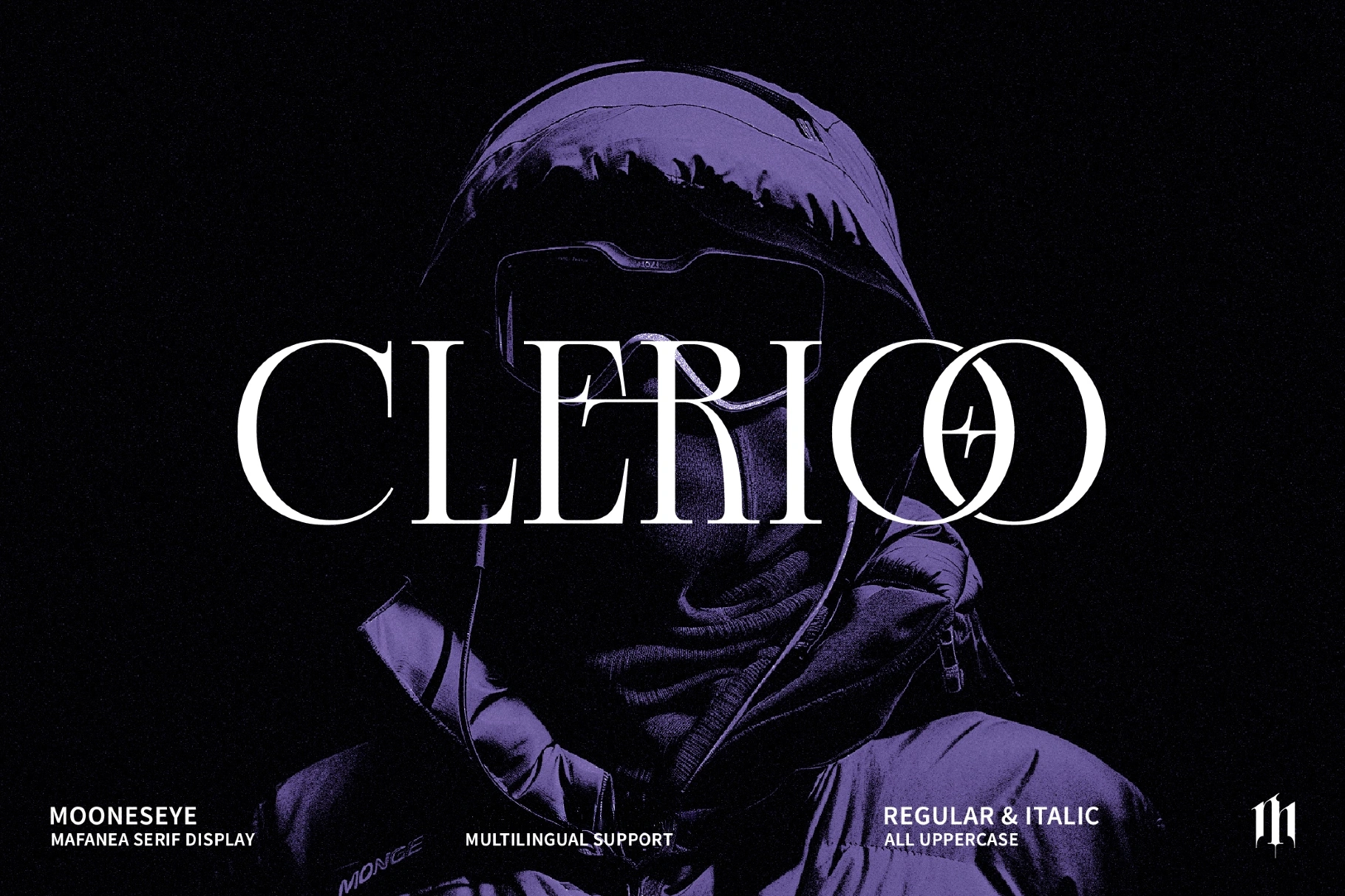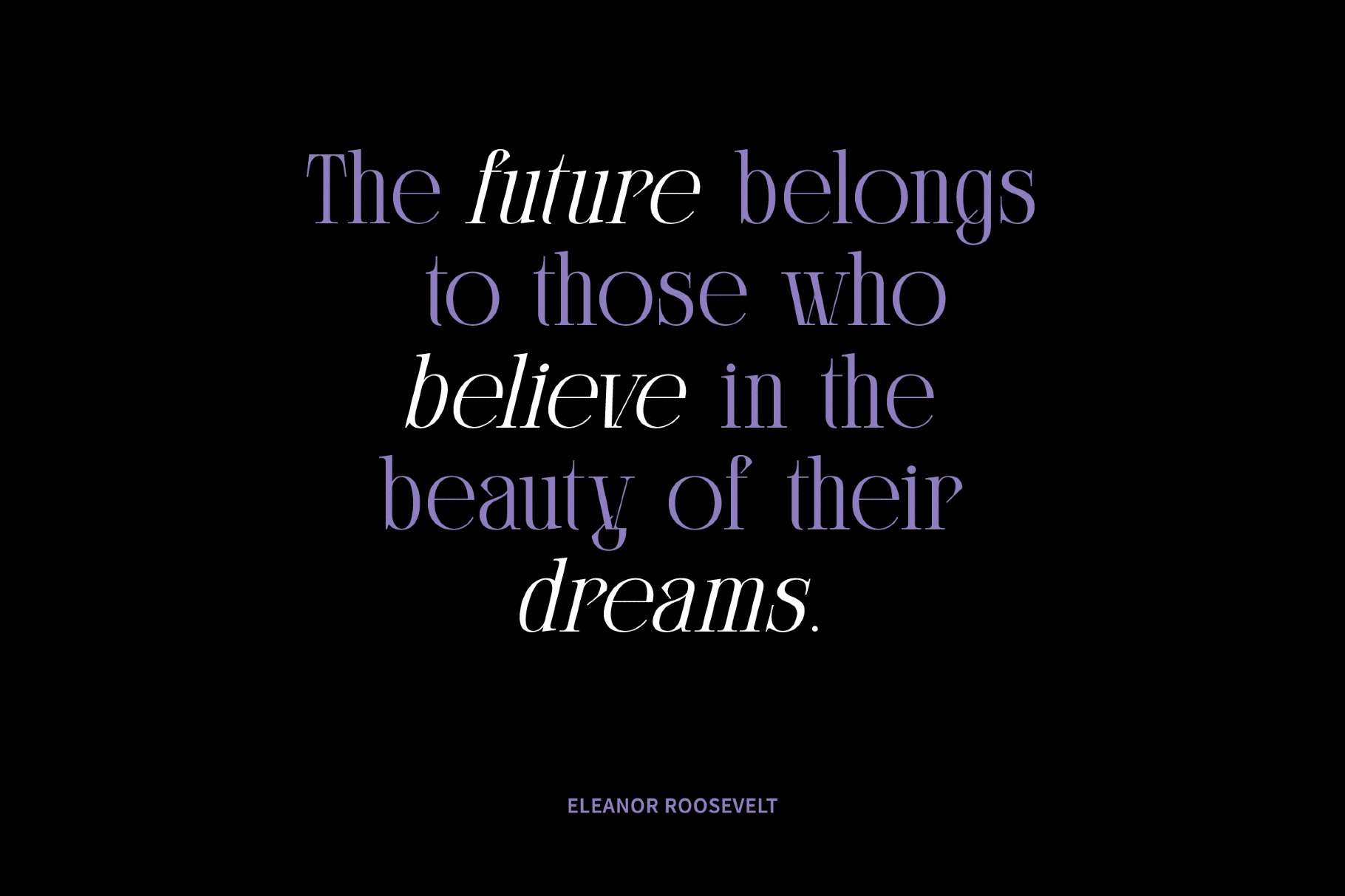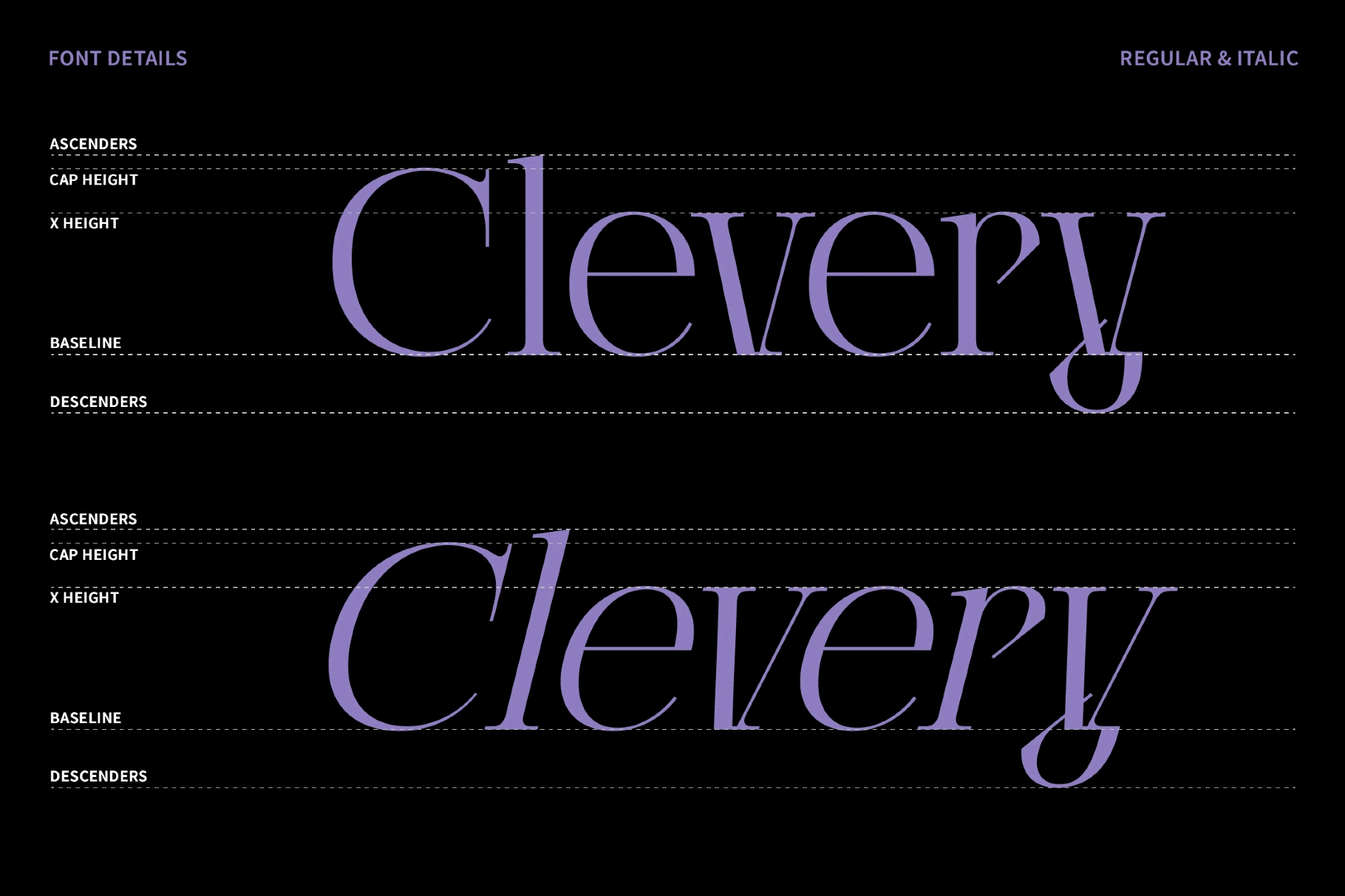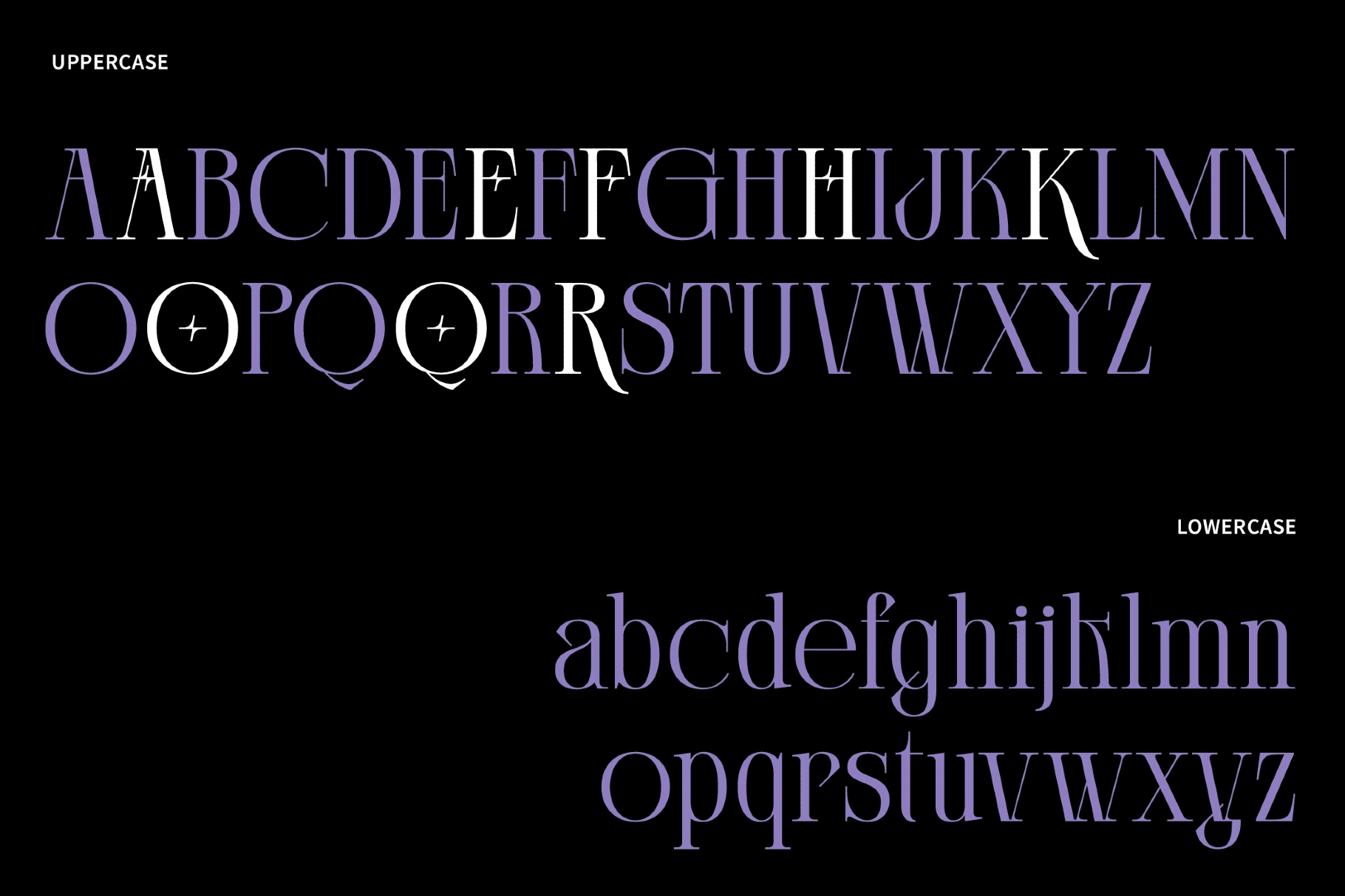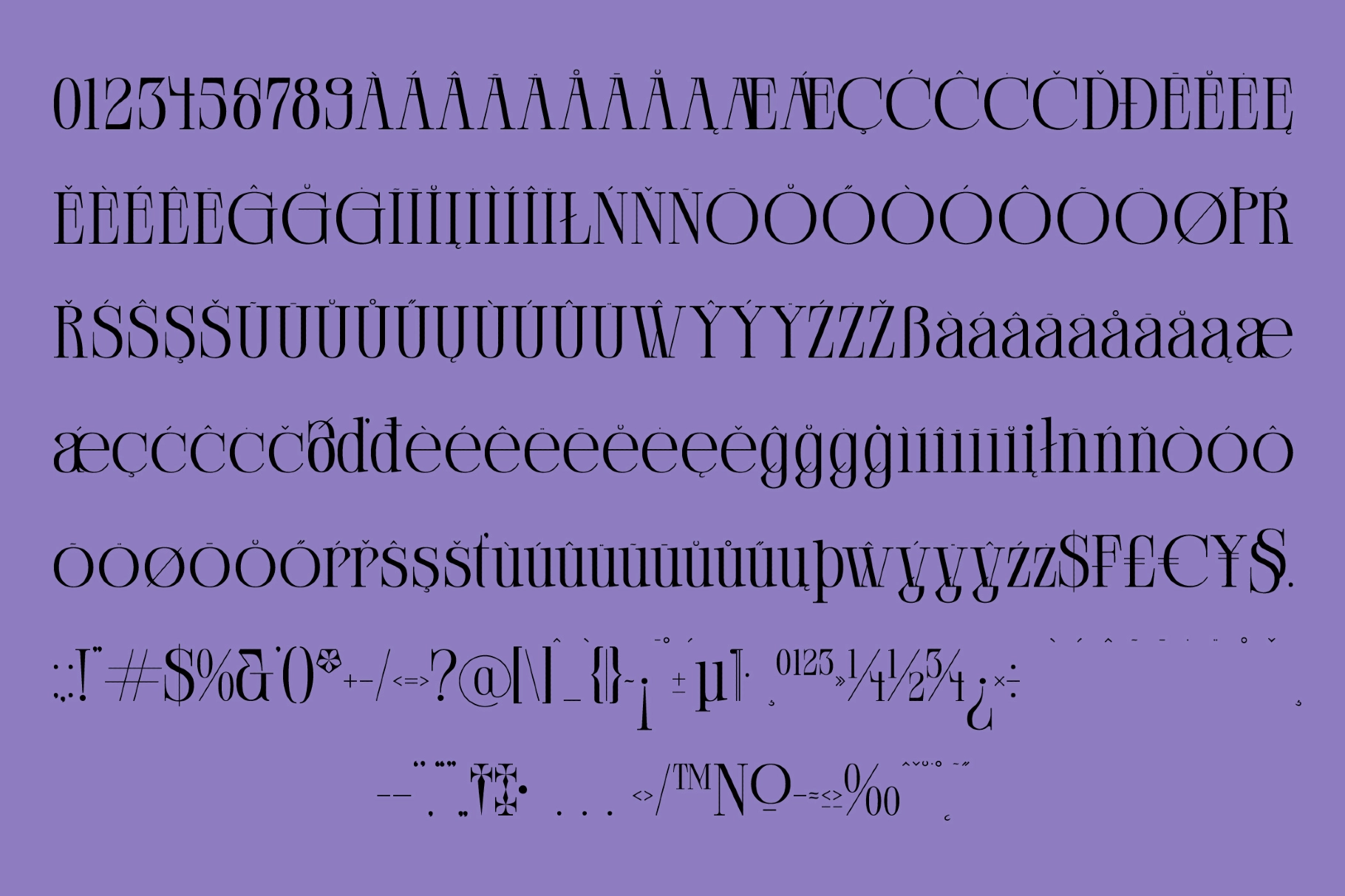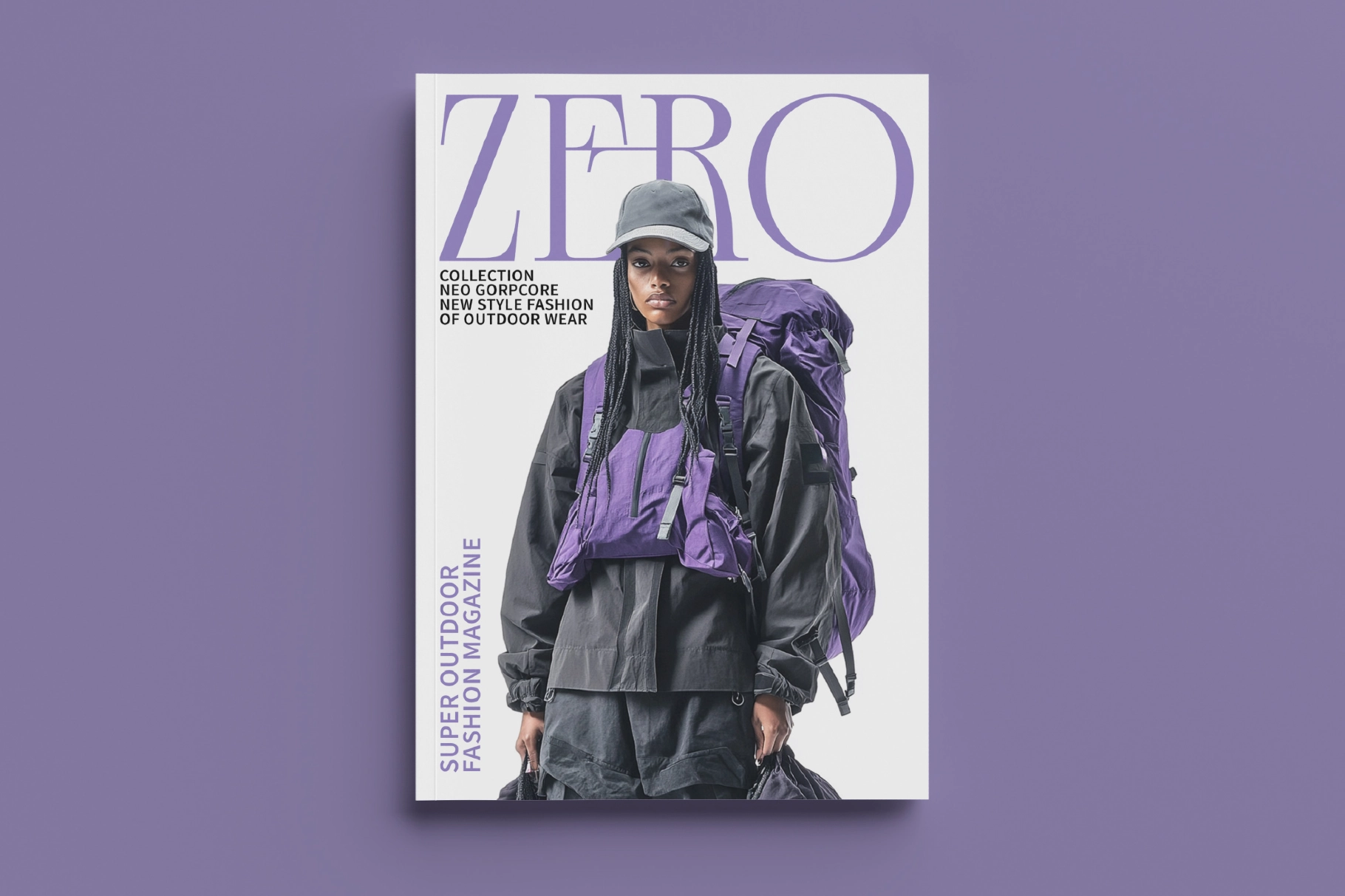
Clerioo - Serif Display Font
A high-contrast serif display typeface with sharp curves, narrow proportions, and a polished editorial rhythm. Its dramatic terminals, sculpted letterforms, and refined italic style give headlines a couture-grade presence without tipping into typographic theater.
Clerioo works for fashion branding, magazine covers, luxury logos, beauty packaging, album artwork, poster design, lookbooks, web headers, social media campaigns, event invitations, boutique labels, and more. The regular style brings poised authority, while the italic adds a softer, cinematic accent for pull quotes, subheadings, and expressive wordmarks.
- 2 styles: Regular, Italic